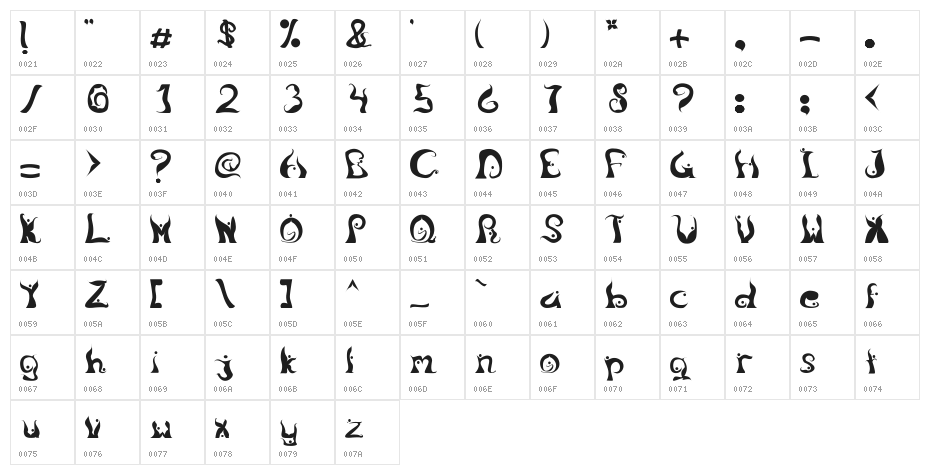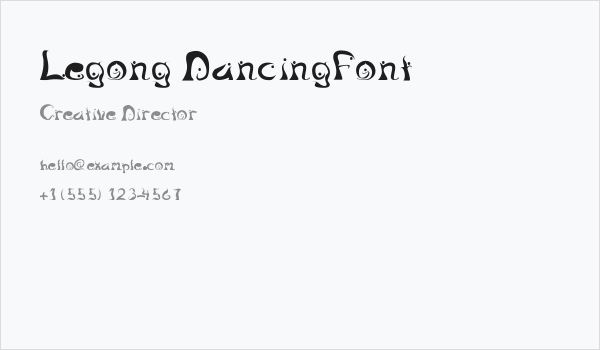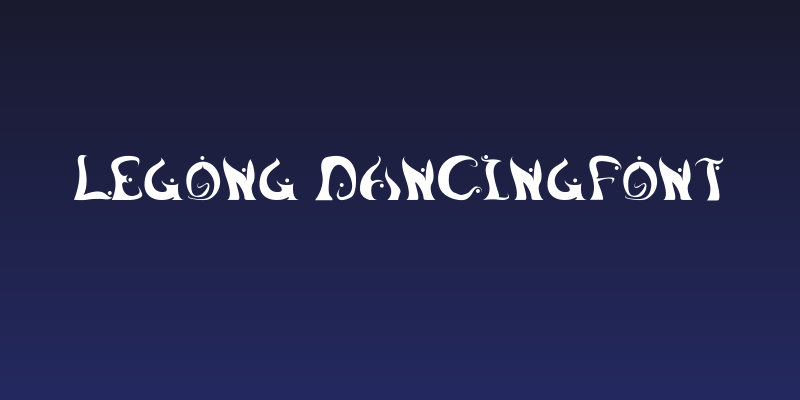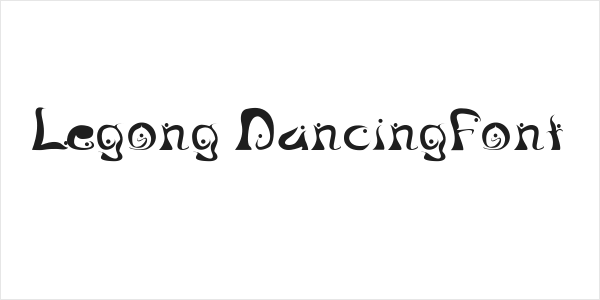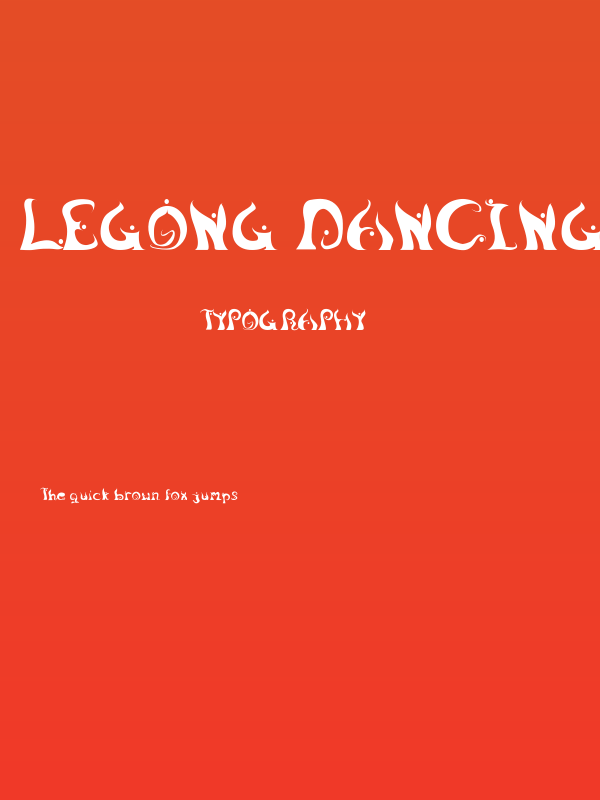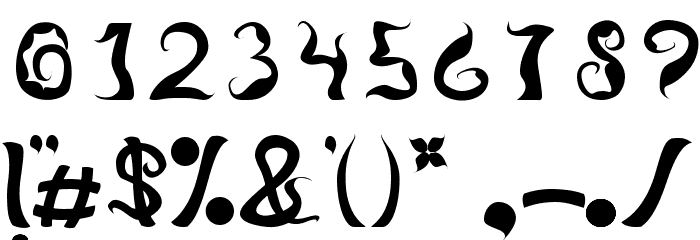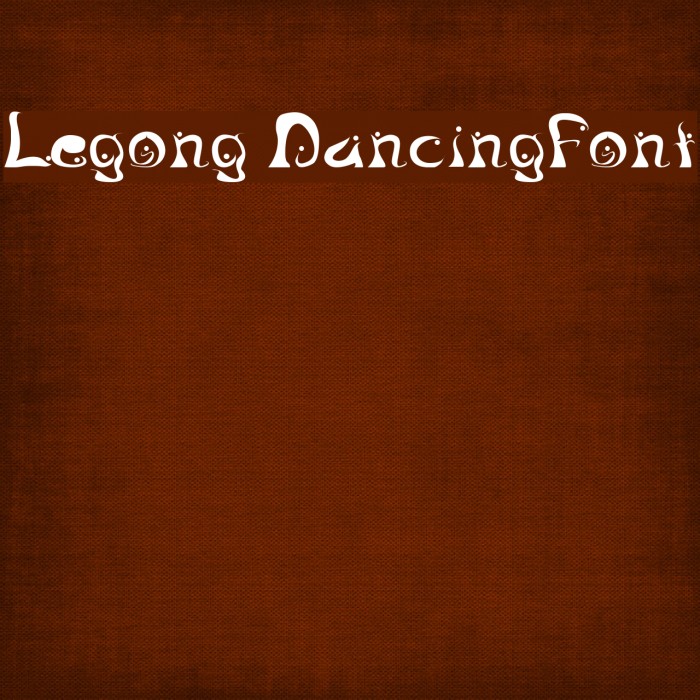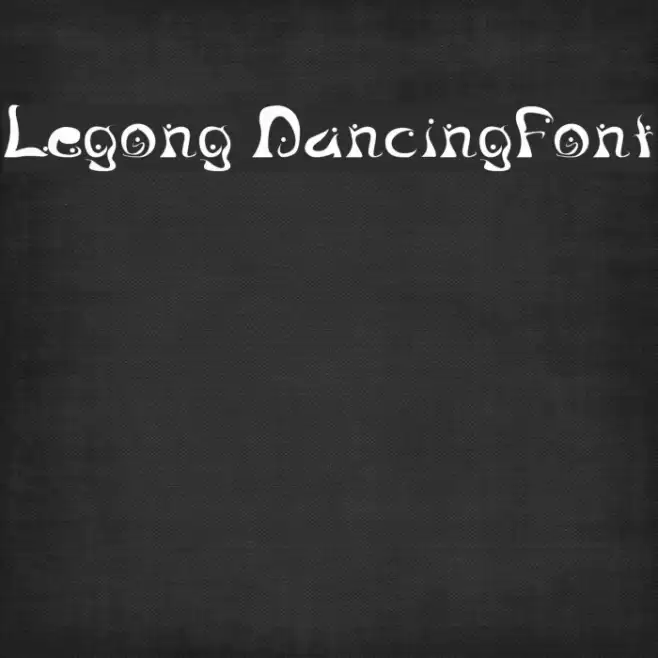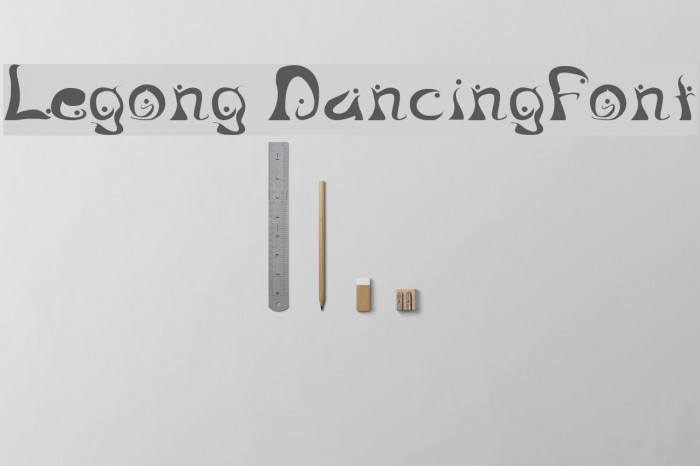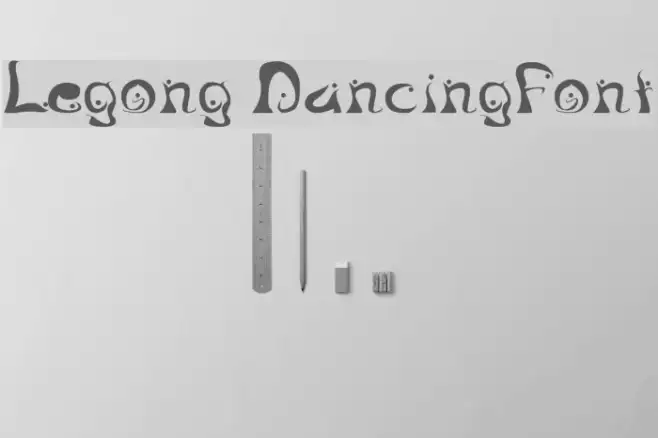
Legong DancingFont Font
Legong DancingFont Description
This font features a unique and artistic design, characterized by its swirling, decorative elements that give each character a dynamic and lively appearance. The letters are embellished with intricate curls and loops, creating a sense of movement and fluidity. The overall style is reminiscent of traditional dance forms, with a playful yet elegant aesthetic. The uppercase and lowercase letters maintain a consistent theme, while the numbers and special characters are equally ornate, ensuring a cohesive look across all text. This font is ideal for projects that require a touch of creativity and flair.
| Use Case | Headlines, Logos, Artistic projects |
| Proposed Projects | Ideal for invitations, posters, artistic projects, and branding that requires a creative touch. |